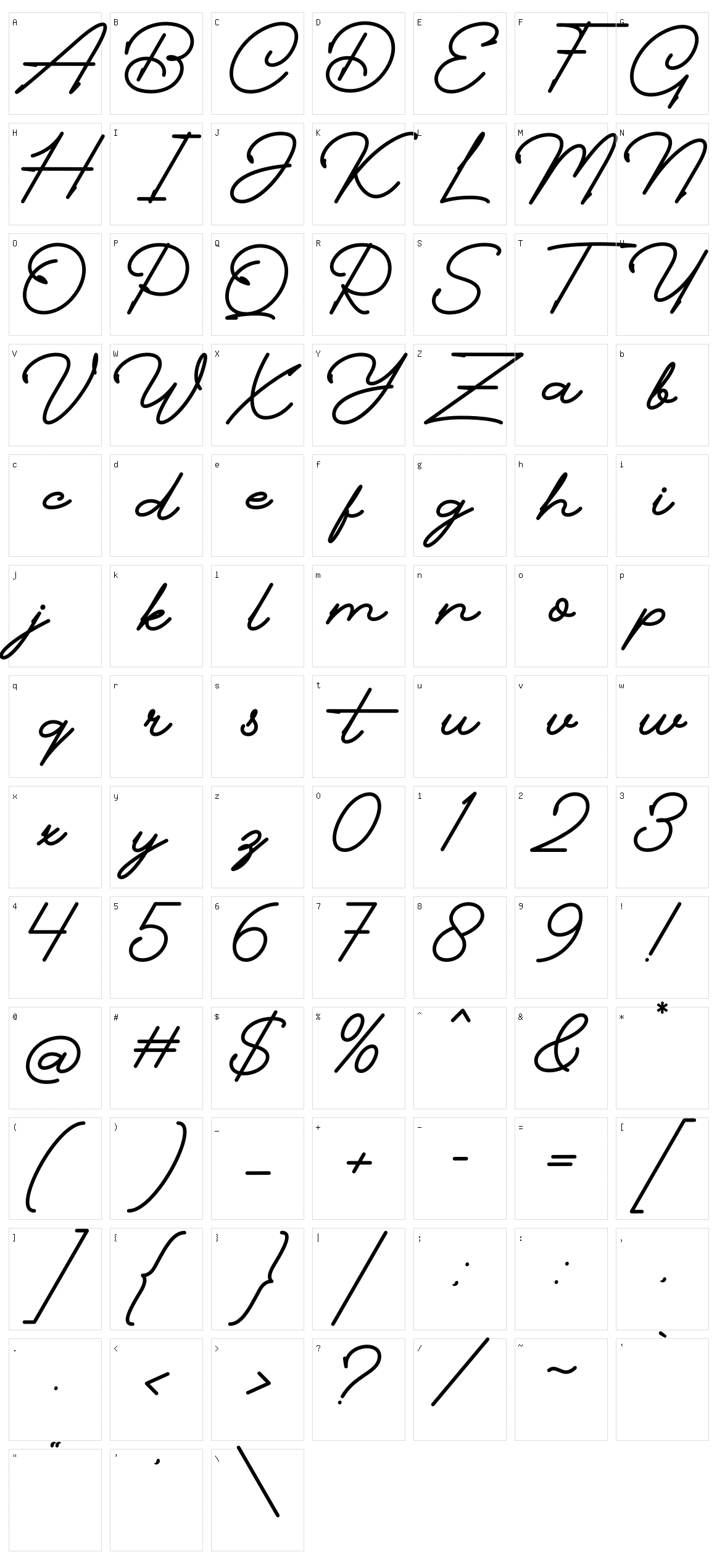
Introducing Pethafis, a bold & festive monoline script font that's suitable for branding, product packaging, social media quotes and graphics, holiday cards and more.